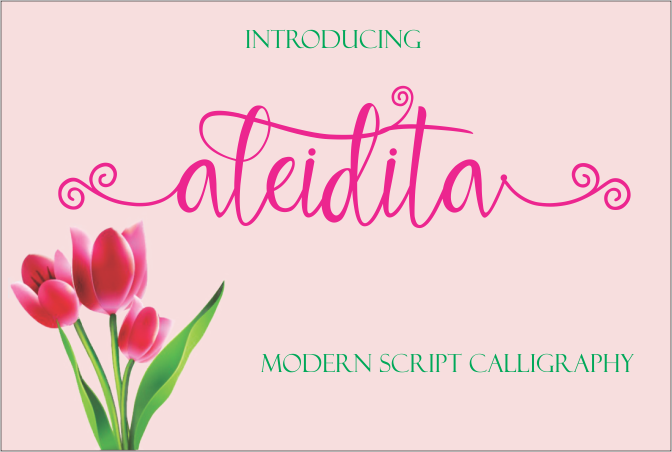
Discover the Enchanting World of Aleidita Font: Where Elegance Meets Modernity
Welcome to the realm of Aleidita Font, a captivating and enchanting script that will cast a spell on your designs. Crafted with meticulous care by the visionary Jaime Rangel Castro, Aleidita embodies the essence of modern calligraphy, offering a symphony of flowing strokes and elegant curves that dance across the page.
Unleash the Power of Expression with Aleidita Font
With Aleidita Font, your words will leap off the page, carrying the weight of emotions and the beauty of artistic expression. Whether you're designing wedding invitations, creating heartfelt greeting cards, or crafting social media posts that capture attention, Aleidita Font will elevate your messages to new heights of creativity and impact.
Immerse Yourself in a World of Timeless Elegance
Aleidita Font is more than just a font; it's an experience that transports you to a world of timeless elegance and sophistication. Its beautifully crafted characters exude grace and charm, adding a touch of refinement to any project you undertake. Prepare to be mesmerized as your designs take on a life of their own, captivating audiences with their allure.
Embrace the Versatility of Aleidita Font
Versatility is the hallmark of Aleidita Font. With its wide range of weights and styles, you can effortlessly adapt it to suit your diverse design needs. From delicate and airy designs to bold and commanding statements, Aleidita Font seamlessly transitions to match your creative vision. Experience the freedom to express yourself in countless ways, knowing that Aleidita Font will always deliver exceptional results.
Indulge in the Beauty of Aleidita Font Today